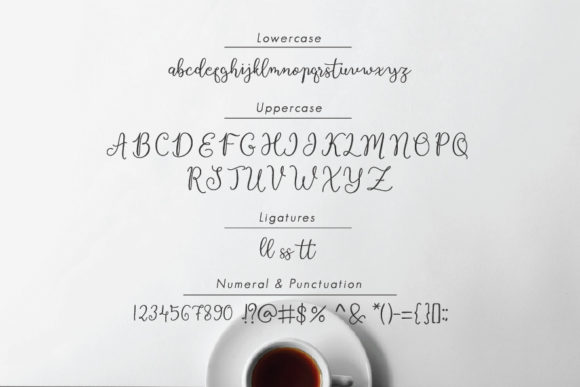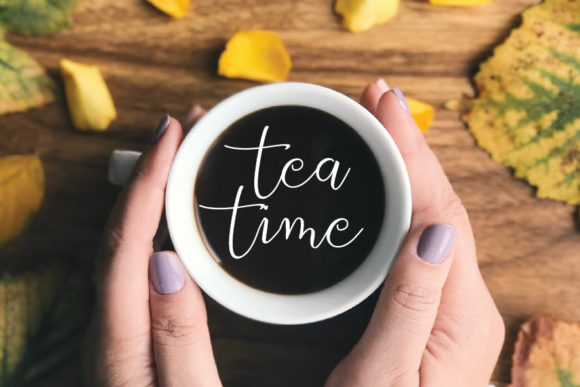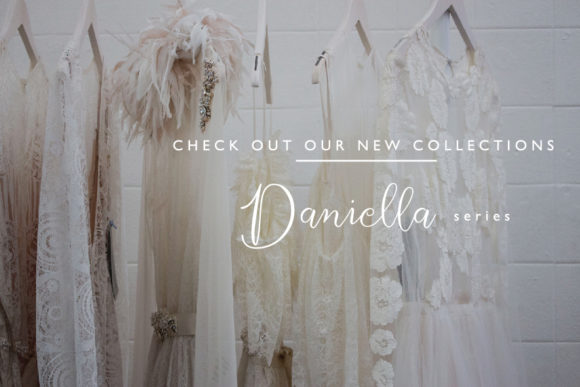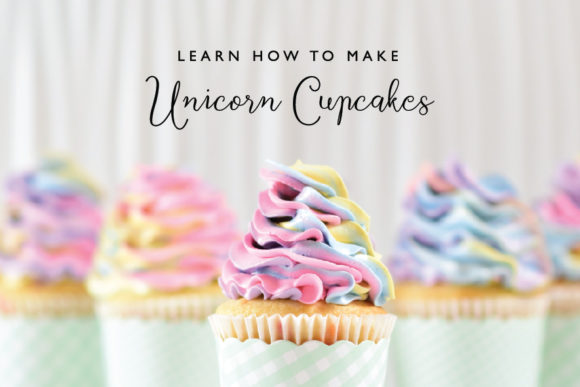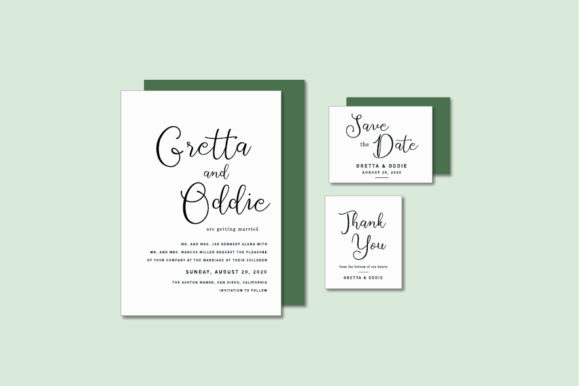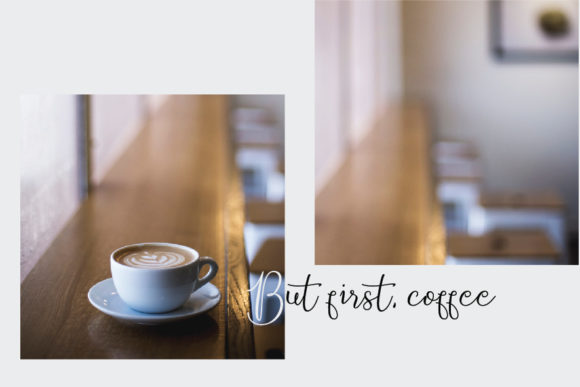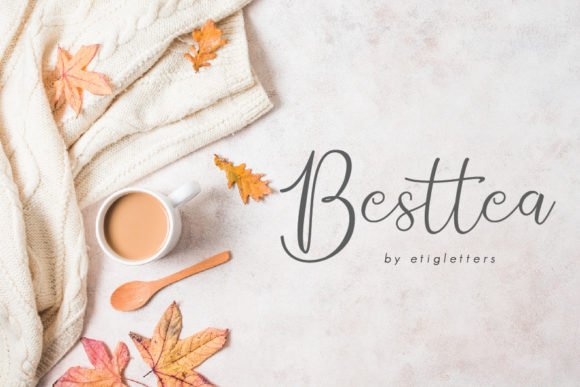
Steeped in Creativity: Unleashing the Potential of Besttea Font
Have you ever sat down with a blank canvas, a notebook, or a screen, and suddenly felt an overwhelming urge to create? The spark of inspiration is a magical thing, and when it strikes, it can be hard to put into words. For designers, writers, and crafters, finding the right tools to bring their vision to life is crucial. That’s where Besttea Font comes in – a one-of-a-kind handwritten font that captures the essence of authenticity and creativity.
Whether you’re working on a project that requires a personal touch or simply want to add some flair to your designs, Besttea Font is the perfect companion. Its unique character and charm make it a valuable asset for designers looking to elevate their work and connect with their audience on a deeper level.
Key Features of Besttea Font
- Unique Characteristics: Besttea Font boasts a unique blend of modern and traditional design elements, making it perfect for creating visually appealing and engaging content.
Designer Review: Besttea Font
Besttea Font is a beautiful, elegant script font that’s perfect for adding a touch of sophistication to your designs. ✨ I love the flowing lines and delicate curves that give it a romantic feel. It’s ideal for wedding invitations, quotes, and other creative projects where you want to convey a sense of love and tenderness.
Pros:
- ✨ Elegant and sophisticated design that’s perfect for romantic projects
- ✨ Beautiful flowing lines and delicate curves
- ✨ Ideal for wedding invitations, quotes, and other creative projects
Cons:
- ⚠️ Limited versatility – it’s best suited for romantic and elegant projects
- ⚠️ May not be the best choice for modern or edgy designs
- ⚠️ Some characters may not be easily readable at small font sizes
Overall, I think Besttea Font is a lovely addition to any designer’s toolkit. While it may not be the most versatile font, it’s perfect for projects where you want to convey a sense of elegance and romance. Just be mindful of its limitations and use it in the right context.
Besttea Font is ideal for creating elegant and sophisticated designs, such as wedding invitations, business cards, and product labels. It’s also great for creating modern and minimalist graphics, logos, and typography-based designs.